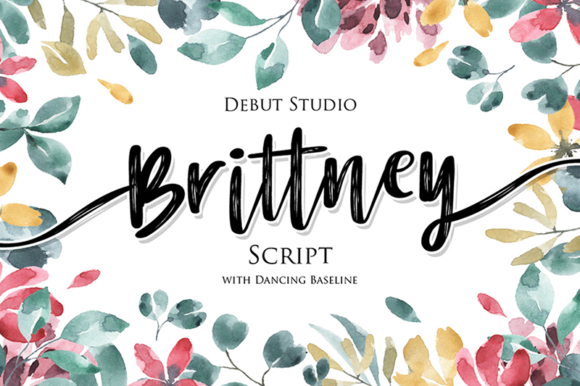
The Perfect Font for Your Next Design Project
Do you remember that moment when you’re working on a design project and you’re just stuck? You’ve got a great idea, but something’s missing – that special something that takes it from ordinary to extraordinary? For many designers, it’s the perfect font that makes all the difference.
Enter Brittney Script Font, a stunning handwritten font that adds a touch of modern charm to any design project. With its light and airy feel, Brittney Script Font is the perfect choice for designers looking to create a unique and eye-catching visual identity. Whether you’re working on a branding project, a website, or a social media campaign, this font is sure to elevate your design to the next level.
Brittney Script Font Key Features
- Font Style: Script Font, ideal for creative and elegant designs
- Font Size: Supports font sizes from 8 to 72 points, with optimal readability at 12-24 points
- Resolution: Compatible with resolutions up to 300 DPI (dots per inch), suitable for print and digital media
- Unique Characteristics: Handwritten feel, cursive connections, and subtle flair, making it perfect for invitations, quotes, and headings
- Language Support: Supports multiple languages, including English, Spanish, French, German, and many more
Designer Review: Brittney Script Font
Overall, I think Brittney Script Font is a lovely choice for a feminine and elegant design. ✨ Its cursive lines and subtle flourishes make it perfect for headings, titles, and even short paragraphs. The font is highly legible, even at smaller font sizes.
- ✨ Elegant and feminine design, making it suitable for women’s magazines, wedding invitations, and similar projects.
- ✨ Highly legible, even at smaller font sizes.
- ✨ Comes in a variety of weights, allowing for flexibility in design.
- ⚠️ The font may be too ornate for more formal or professional designs.
- ⚠️ Some characters, like ‘q’ and ‘k’, can be difficult to read due to their unique design.
- ⚠️ The font may not be suitable for body text, as it can be too time-consuming to read.
Overall, I think Brittney Script Font is a great choice for designers looking for a elegant and feminine font. While it may have some limitations, its unique design and high legibility make it a valuable addition to any design library.
Tips for Getting the Most Out of Brittney Script Font
Use Brittney Script Font to add a touch of elegance and sophistication to your designs.
Pair it with bold fonts to create contrast and visual interest.
Experiment with different font sizes and colors to find the perfect combination.
Use Brittney Script Font for:
Event branding and marketing materials
Personalized gifts and cards
Alternatives to Brittney Script Font for Designers
Lobster is a popular, cursive script font ideal for creating a luxurious and elegant look. It’s perfect for titles, headings, and logos where a touch of sophistication is required. Lobster is more ornate than Brittney Script Font, making it suitable for high-end branding and advertising.
Great Vibes is a beautiful, handwritten script font that works well for creating a friendly and approachable atmosphere. It’s suitable for use in headings, titles, and body text where a casual tone is desired. Great Vibes is more relaxed than Brittney Script Font, making it perfect for blogs, magazines, and social media platforms.
Carolyna Pro is a modern, elegant script font that’s ideal for creating a high-end, luxurious look. It’s perfect for use in branding, advertising, and packaging where a touch of sophistication is required. Carolyna Pro is more refined and polished than Brittney Script Font, making it suitable for corporate branding and luxury goods.
Alex Brush is a beautiful, handwritten script font that works well for creating a warm and inviting atmosphere. It’s suitable for use in headings, titles, and body text where a personal touch is desired. Alex Brush is more organic and natural than Brittney Script Font, making it perfect for blogs, journals, and personal projects.
Brittney Script Font Creative Project Ideas
Design beautiful, hand-painted style wedding invitations using Brittney Script Font.